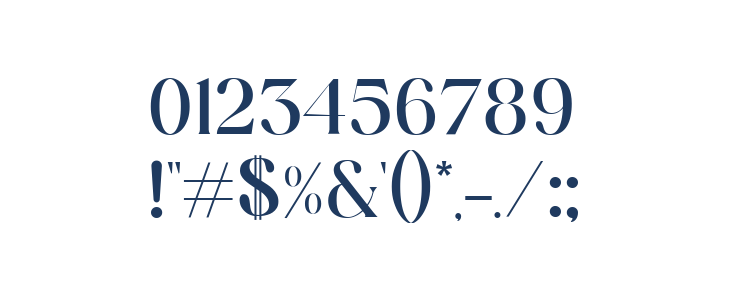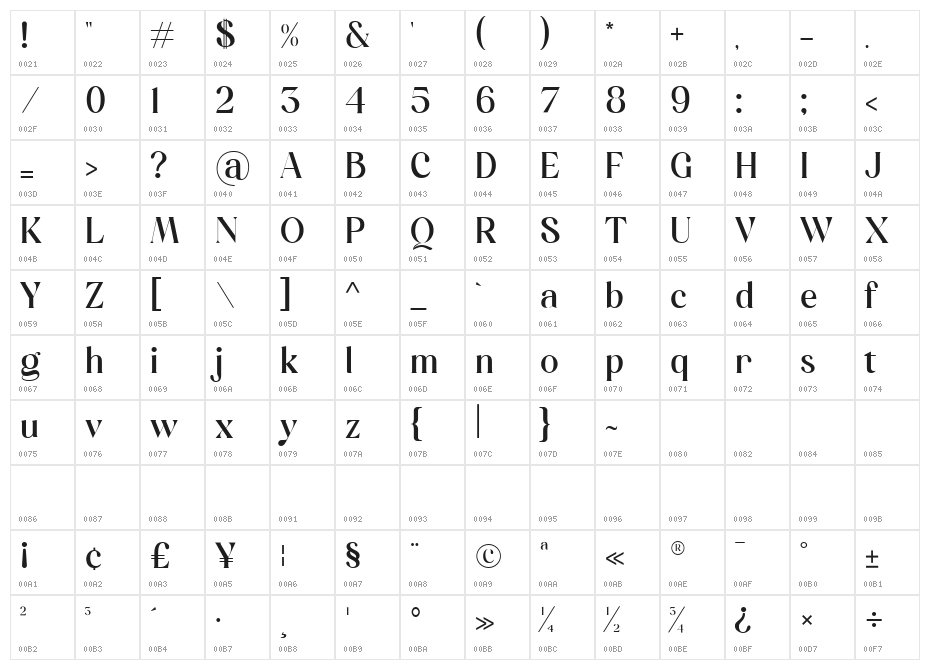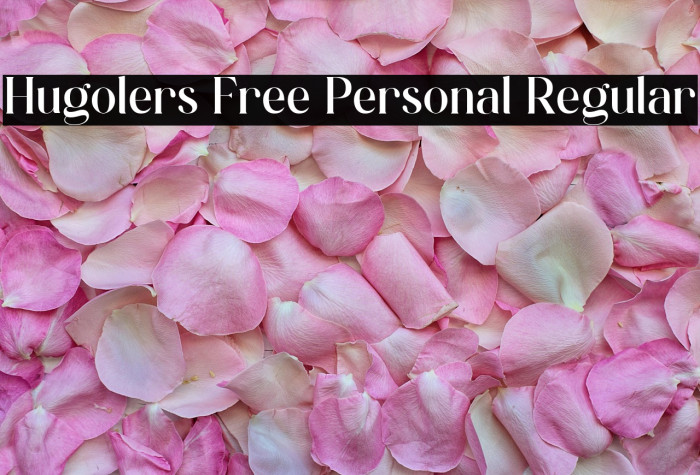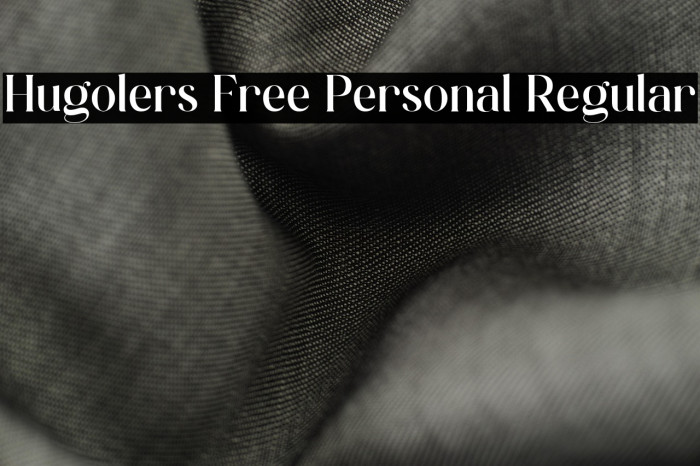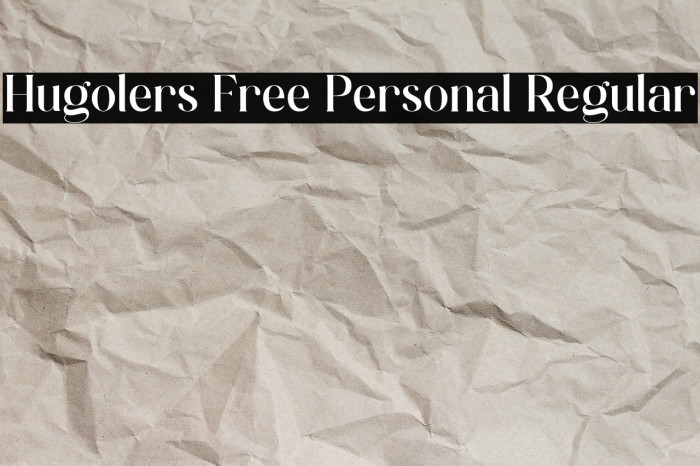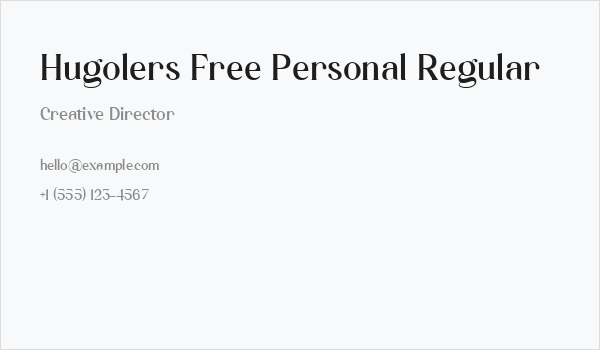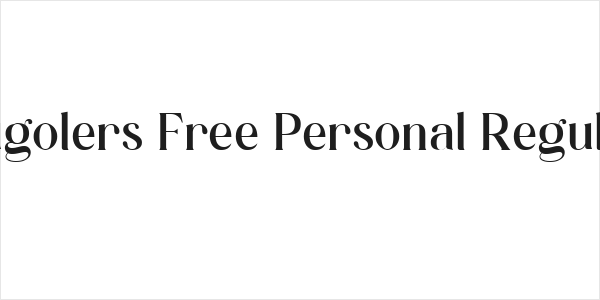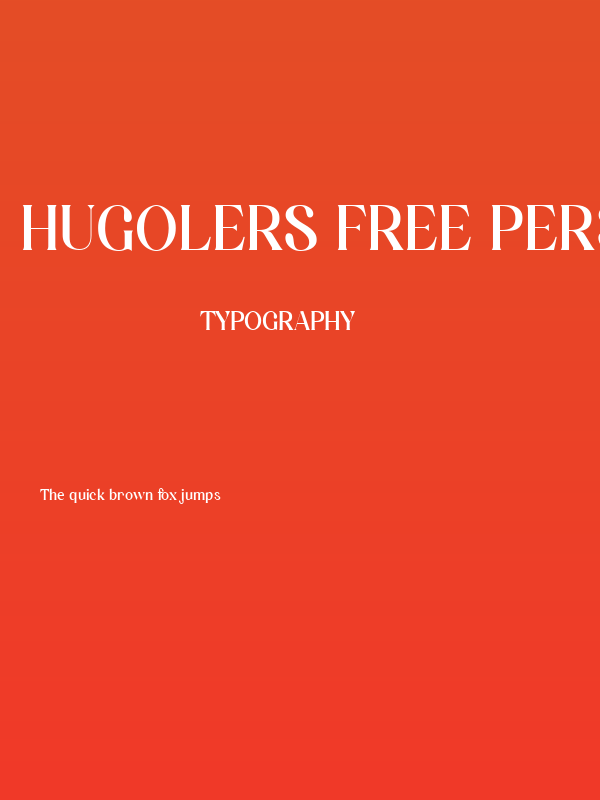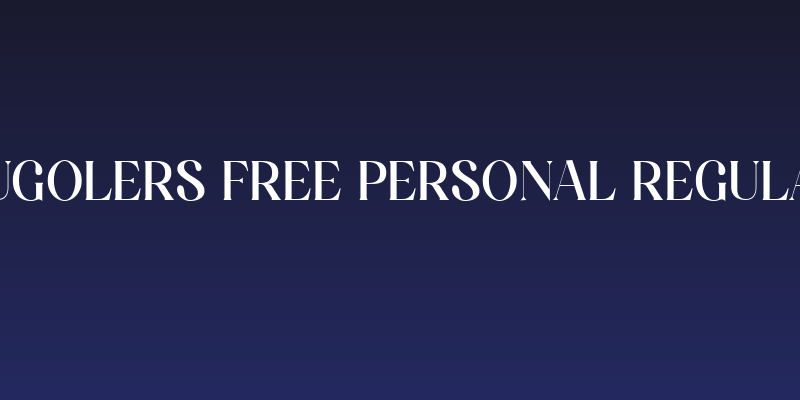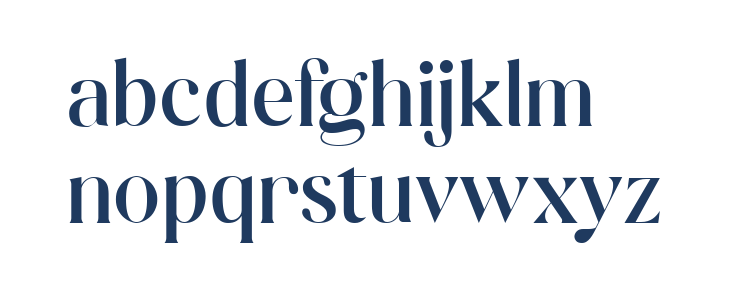
Hugolers Free Personal Regular Font
Hugolers Free Personal Regular Description
This font features a sophisticated and elegant design with a high contrast between thick and thin strokes, giving it a refined and stylish appearance. The uppercase letters are tall and slender, with sharp serifs that add a touch of formality. The lowercase letters maintain a consistent style, with rounded forms that balance the sharpness of the serifs. The numerals are clear and distinct, making them easy to read. Special characters are designed with the same attention to detail, ensuring a cohesive look across all glyphs. This font exudes a sense of modernity while retaining classic elements, making it versatile for various design needs.
| Proposed Projects | Ideal for luxury branding, editorial design, fashion magazines, and elegant invitations. |